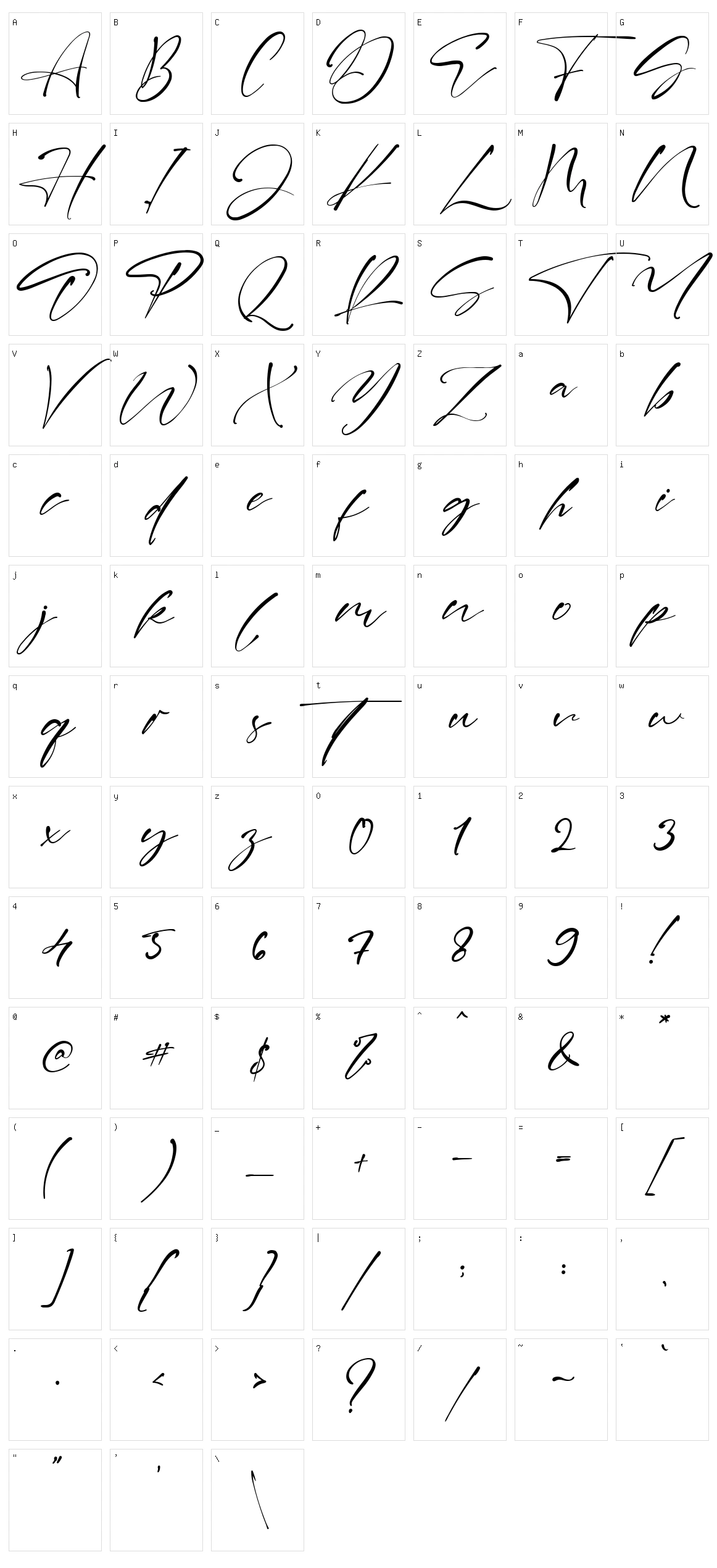
The free font Laneky Haizen is carefully designed by StringLabs Creative Studio, showcasing a thoughtful balance of creativity and usability and falls under the Script font style. When you download the ZIP file, it contains only 121.78 KB of font files, making it lightweight and quick to download. Please review the license details below to understand permitted usage and distribution rights. If license information is not available, we recommend using this font for personal projects only or contacting the author directly for commercial usage permissions.